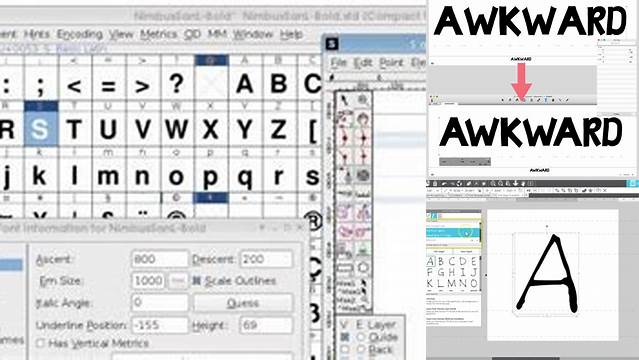
SVG Font Maker: Create Your Own Scalable Fonts
Hey guys! Ever wanted to create your own font? It might sound intimidating, but with the right tools and guidance, it’s totally achievable. In this comprehensive guide, we'll dive deep into the world of SVG font makers. We’ll explore what they are, why you might want to use one, and how to get started making your own unique fonts. Whether you're a designer, a hobbyist, or just someone curious about typography, this article is for you. So, grab your creative hat, and let's get started!
Creating your own font can add a unique touch to your design projects. SVG font makers are powerful tools that allow you to design fonts in a scalable vector graphic format. This means your fonts will look crisp and clear at any size, making them perfect for everything from web design to print materials. In this article, we will cover everything you need to know about SVG font makers, from understanding the basics to mastering advanced techniques. We'll explore different software options, discuss the advantages of using SVG fonts, and provide step-by-step guidance on the font creation process. By the end of this guide, you'll have the knowledge and skills to create your own stunning fonts. So, let’s dive in and unlock the creative possibilities that SVG font makers offer!
The world of typography is vast and fascinating, and creating your own font is a fantastic way to express your creativity. SVG font makers open up a realm of possibilities, allowing you to craft typefaces that are uniquely yours. With SVG fonts, you’re not limited by raster graphics; you're working with vectors, which means your fonts can scale infinitely without losing quality. This is crucial for modern design, where fonts need to look sharp across various devices and screen resolutions. Whether you're designing a logo, a website, or a book, custom fonts can add a distinctive flair that sets your work apart. We’ll walk you through the process of understanding SVG fonts, choosing the right software, and designing your glyphs with precision. Plus, we’ll share some tips and tricks to help you avoid common pitfalls and create fonts that are both beautiful and functional. So, are you ready to embark on this exciting journey? Let’s explore the world of SVG font creation together!
So, what exactly is an SVG font maker? Simply put, it’s a software or tool that allows you to design fonts in the Scalable Vector Graphics (SVG) format. SVG is a vector-based image format, which means that fonts created in this format can be scaled up or down without losing quality. This is a huge advantage over traditional raster-based fonts, which can become pixelated or blurry when resized. SVG fonts are perfect for web design, graphic design, and any other application where you need fonts that look sharp at any size. Now that we know what they are let's look at why they're so awesome.
SVG font makers are specialized tools designed to create typefaces in the Scalable Vector Graphics (SVG) format. Unlike traditional font formats that rely on raster images, SVG fonts use vector graphics. This means that each character, or glyph, is defined by mathematical equations rather than pixels. The key benefit of this approach is scalability. SVG fonts can be scaled up or down without any loss of quality, making them ideal for responsive web design, high-resolution displays, and print materials. Imagine creating a font that looks just as crisp and clear on a tiny mobile screen as it does on a large billboard – that's the power of SVG fonts! In essence, an SVG font maker provides a digital canvas where you can draw and refine each character, ensuring that your font looks perfect across all media. These tools often come with features tailored to font design, such as precise curve manipulation, glyph spacing adjustments, and kerning controls. By understanding what an SVG font maker is, you're already one step closer to creating your own unique typeface.
The beauty of SVG font makers lies in their ability to produce fonts that are resolution-independent. In today's world, where designs need to look flawless on devices ranging from smartphones to large monitors, this is a game-changer. SVG fonts are defined by vector paths, which means they can be scaled infinitely without any pixelation or distortion. Think about the implications for branding, web design, and print media. Your logos and text will always appear sharp and professional, no matter the size or screen density. Moreover, SVG fonts are relatively lightweight, which can improve website loading times compared to heavier font formats. SVG font makers typically offer a range of tools to help you craft each glyph with precision. You can adjust curves, manipulate anchor points, and fine-tune spacing and kerning to achieve the perfect look. These tools empower you to create fonts that are not only visually appealing but also highly legible and functional. As we delve deeper into this guide, you'll discover how to harness the full potential of SVG font makers and bring your typographic visions to life.
There are tons of reasons why you might want to use an SVG font maker. The biggest one, as we mentioned, is scalability. But there’s more to it than that! SVG fonts are also highly customizable. You can easily add gradients, patterns, and even animations to your fonts, creating truly unique and eye-catching typography. Plus, SVG fonts are supported by all major web browsers, so you can use them on your website without worrying about compatibility issues. It’s about creating something that’s uniquely yours and stands out from the crowd.
There are several compelling reasons to opt for an SVG font maker when creating your own typefaces. First and foremost is the unparalleled scalability. Unlike traditional font formats, SVG fonts are based on vector graphics, which means they can be resized to any scale without losing quality. This is crucial for ensuring your font looks crisp and clear across various devices and screen resolutions. Think about the versatility this offers – your font will look just as good on a small mobile screen as it does on a large billboard. Beyond scalability, SVG fonts offer a high degree of customization. You can incorporate gradients, patterns, and even animations into your fonts, allowing for truly unique and eye-catching designs. This level of customization opens up a world of possibilities for branding and visual communication. Additionally, SVG fonts are supported by all major web browsers, making them an excellent choice for web design. You can use them on your website without compatibility issues, ensuring a consistent and professional look across all platforms. By choosing an SVG font maker, you’re not just creating a font; you’re crafting a versatile and future-proof typographic asset.
Beyond the technical advantages, using an SVG font maker allows for a level of artistic expression that’s hard to achieve with other font formats. Imagine being able to infuse your fonts with textures, gradients, and intricate details that truly reflect your style. SVG fonts make this possible. They provide a canvas for creativity, allowing you to push the boundaries of traditional typography. Another significant advantage is the lightweight nature of SVG files. This is particularly important for web design, where page load times can impact user experience. SVG fonts are typically smaller in file size compared to raster-based fonts, which can lead to faster loading times and improved website performance. Furthermore, SVG fonts are easily editable, making it simple to make adjustments and refinements to your design. You can tweak individual glyphs, adjust spacing, and experiment with different styles without the constraints of fixed pixels. This flexibility empowers you to iterate on your designs and create fonts that are perfectly tailored to your needs. So, whether you’re a designer looking to create a signature typeface or a web developer aiming for optimal performance, an SVG font maker is an invaluable tool.
Okay, so you’re sold on the idea of using an SVG font maker. Great! But where do you start? There are several options out there, each with its own strengths and weaknesses. Some popular choices include FontForge, Glyphs, and BirdFont. FontForge is a free, open-source option that’s incredibly powerful but can have a bit of a learning curve. Glyphs is a more user-friendly option that’s popular among professional font designers. BirdFont is another free option that’s known for its simplicity and ease of use. Let’s take a closer look at each of these.
When it comes to popular SVG font makers, you have a range of options to choose from, each with its own unique features and capabilities. One standout is FontForge, a free and open-source font editor that’s incredibly powerful. While it might have a steeper learning curve compared to some other options, FontForge offers a wealth of features for creating and editing fonts in various formats, including SVG. It’s a great choice for those who want a comprehensive tool without the cost. On the other end of the spectrum is Glyphs, a more user-friendly font editor that’s widely used by professional font designers. Glyphs boasts an intuitive interface and a robust set of features, making it ideal for both beginners and experienced typographers. However, it’s a paid software, so you’ll need to factor that into your budget. Another noteworthy option is BirdFont, which is also free and open-source. BirdFont is known for its simplicity and ease of use, making it an excellent choice for those who are new to font design. It provides a straightforward workflow and a clean interface, allowing you to focus on the creative process. Each of these font makers has its own strengths, so it’s worth exploring them to find the one that best suits your needs and preferences.
Choosing the right popular SVG font maker can significantly impact your font design experience. Let’s dive deeper into what makes each option unique. FontForge, being open-source, has a vibrant community and a wealth of resources available online. This means you can find plenty of tutorials, forums, and support to help you navigate its features. Its extensive capabilities include advanced scripting, font hinting, and the ability to handle complex glyph designs. Glyphs, on the other hand, stands out for its focus on streamlining the design process. Its user-friendly interface and intuitive tools make it easy to create and refine your fonts. Glyphs also offers excellent support for variable fonts, which are becoming increasingly popular in web design. BirdFont’s simplicity is its greatest strength. It’s designed to be accessible to beginners, with a clean and uncluttered interface that doesn’t overwhelm new users. While it may not have all the advanced features of FontForge or Glyphs, it provides a solid foundation for creating SVG fonts. When making your decision, consider factors like your budget, your level of experience, and the specific features you need. Do you require advanced scripting capabilities? Are you looking for a user-friendly interface? Or is cost your primary concern? Answering these questions will help you narrow down your options and choose the best SVG font maker for your project.
Alright, you’ve picked your SVG font maker – awesome! Now, let's dive into the nitty-gritty of actually creating a font. The first step is to familiarize yourself with the software’s interface. Most SVG font makers have a similar layout, with a central canvas for drawing your glyphs, panels for adjusting settings, and tools for manipulating shapes. Start by creating a new font project and setting up your basic parameters, such as font name, style, and character set. Then, it’s time to start drawing! This is where the fun begins.
Once you’ve selected your preferred SVG font maker, the next step is to dive into the font creation process. Start by familiarizing yourself with the software’s interface. Most SVG font makers have a similar layout, with a central canvas for drawing glyphs, panels for adjusting settings, and toolbars for accessing various functions. Take some time to explore the different tools and menus to get a feel for how the software works. A good starting point is to create a new font project. This usually involves setting up basic parameters such as the font name, style (e.g., regular, bold, italic), and character set (e.g., Latin, Cyrillic). Choosing the right character set is crucial, as it determines which characters your font will support. Once you’ve set up your project, it’s time to start drawing your glyphs. This is where the creative process really begins. Each glyph represents a character in your font, so you’ll need to design each letter, number, and symbol individually. Most SVG font makers provide a variety of tools for drawing and manipulating shapes, such as pen tools, shape tools, and path editing tools. Experiment with these tools to create your desired letterforms. Remember, consistency is key in font design, so aim for a cohesive style across all your glyphs.
The journey of creating an SVG font is both challenging and rewarding. After setting up your project, the real magic happens when you start drawing your glyphs. Begin with the core characters, such as the uppercase and lowercase letters, numbers, and basic punctuation marks. These form the foundation of your font and will help you establish its overall style and personality. As you draw each glyph, pay close attention to details like stroke thickness, curves, and counter-spaces (the empty spaces within letters). These elements contribute significantly to the font's readability and aesthetic appeal. Many SVG font makers offer features like guidelines and grids to help you maintain consistency and alignment across your glyphs. Use these tools to your advantage. Don't be afraid to experiment with different styles and techniques. Try drawing inspiration from existing fonts, but always strive to add your own unique touch. The beauty of creating your own font is that you have complete control over every aspect of its design. As you progress, remember to regularly test your font by typing out words and phrases. This will help you identify any issues with spacing, kerning (the space between specific pairs of letters), or overall readability. Font design is an iterative process, so be prepared to make adjustments and refinements along the way. With patience and creativity, you can create an SVG font that truly reflects your vision.
Creating a great SVG font isn’t just about knowing the tools; it’s also about understanding design principles. One crucial tip is to maintain consistency across your glyphs. This means keeping the same stroke thickness, letter height, and overall style for all characters. Another tip is to pay attention to spacing and kerning. The space between letters can greatly affect readability, so take the time to adjust the spacing between each character pair. Also, don't be afraid to iterate and experiment. Font design is a process, so the more you practice, the better you’ll become. Remember, even professional designers go through multiple revisions before they’re happy with the final result.
Designing great SVG fonts requires a blend of technical skill and artistic vision. One of the most important tips is to maintain consistency across all your glyphs. This means ensuring that the stroke thickness, letter height, and overall style are uniform throughout your font. Inconsistent glyphs can make your font look disjointed and unprofessional, so strive for a cohesive design. Another key aspect is spacing and kerning. The space between letters can significantly impact readability. If letters are too close together, they can appear cramped; if they’re too far apart, they can look disconnected. Kerning involves adjusting the spacing between specific pairs of letters to create a more balanced and visually appealing appearance. Many SVG font makers offer tools to help you with kerning, so take advantage of them. Additionally, don’t underestimate the importance of simplicity. While it can be tempting to create overly elaborate glyphs, simpler designs are often more legible and versatile. Aim for a clean and elegant look that will work well in a variety of contexts. Remember, a great font is not just visually appealing; it’s also functional and easy to read.
To create truly great SVG fonts, you need to think beyond the individual glyphs and consider the overall harmony and functionality of your typeface. Experimentation is key. Try out different styles, weights, and proportions to see what works best. Don't be afraid to break the rules and push the boundaries of traditional typography. However, always keep readability in mind. A font that’s too quirky or unconventional may be difficult to read, which defeats its purpose. Another valuable tip is to seek feedback from others. Share your font designs with fellow designers, friends, or potential users and ask for their honest opinions. Constructive criticism can help you identify areas for improvement and refine your design. Furthermore, consider the context in which your font will be used. Is it intended for headlines, body text, or display purposes? This will influence your design decisions. For example, a font designed for body text should prioritize readability and legibility, while a display font can be more decorative and expressive. Finally, remember that font design is a continuous learning process. Stay curious, keep practicing, and always strive to improve your skills. With dedication and creativity, you can create SVG fonts that are not only visually stunning but also highly functional and versatile.
So, there you have it, guys! A comprehensive guide to SVG font makers. Creating your own fonts can be a super rewarding experience, and SVG fonts offer some awesome advantages in terms of scalability and customization. Whether you’re a professional designer or just someone looking to dabble in typography, there’s an SVG font maker out there for you. So, go forth and create some amazing fonts! Who knows, maybe your font will be the next big thing in design!
In conclusion, SVG font makers are powerful tools that empower you to create your own unique typefaces. From understanding the basics of SVG fonts to exploring popular software options and mastering design techniques, we’ve covered a lot of ground in this guide. The advantages of using SVG fonts, such as scalability, customization, and browser compatibility, make them an excellent choice for a wide range of design projects. Whether you’re a seasoned designer or just starting out, the ability to create your own fonts opens up a world of creative possibilities. By following the tips and guidance provided in this article, you can craft fonts that are not only visually appealing but also highly functional and versatile. So, embrace the challenge, unleash your creativity, and start designing your own SVG fonts today!
The journey into the world of SVG font creation is an ongoing exploration, full of exciting possibilities and opportunities for growth. We hope this guide has provided you with a solid foundation and the inspiration to embark on your own typographic adventures. Remember, the best fonts are those that reflect your unique style and vision. Whether you’re crafting a font for a specific project or simply experimenting with different designs, the skills and knowledge you’ve gained here will serve you well. As you continue to hone your craft, stay curious, keep learning, and never be afraid to try new things. The world of typography is constantly evolving, and there’s always something new to discover. So, go ahead, create your own SVG fonts, and leave your mark on the world of design. The possibilities are endless!